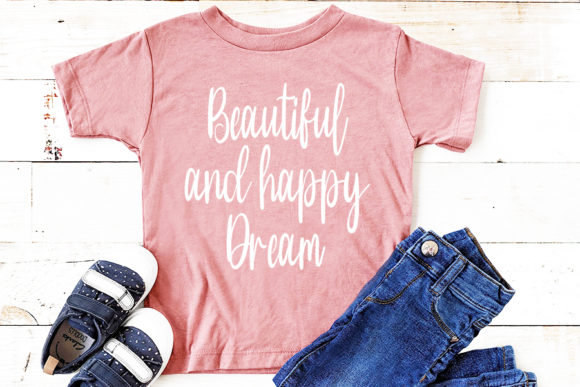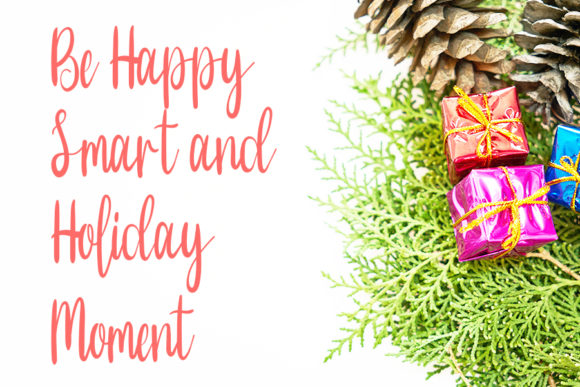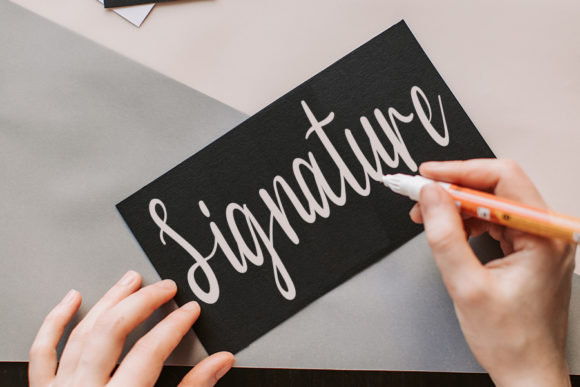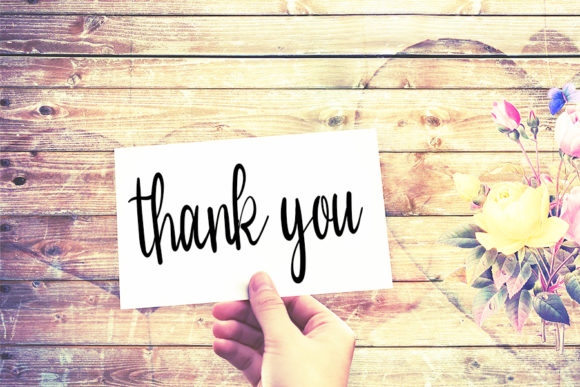
Hello Honey Font
About Hello Honey Font
Hello Honey is a tall and friendly handwritten font. This font is perfect for a wide variety of projects such as making flyers, mockups, logos, banners, Instagram, youtube, and various other crafts.